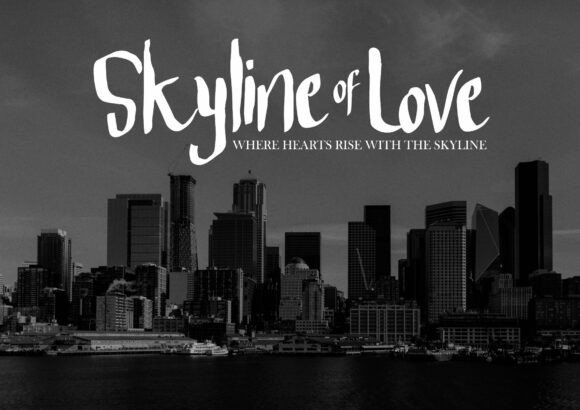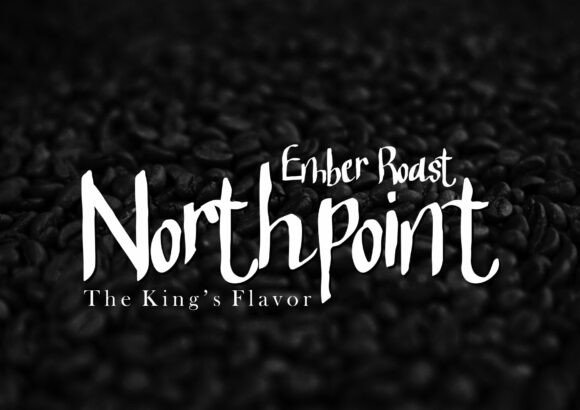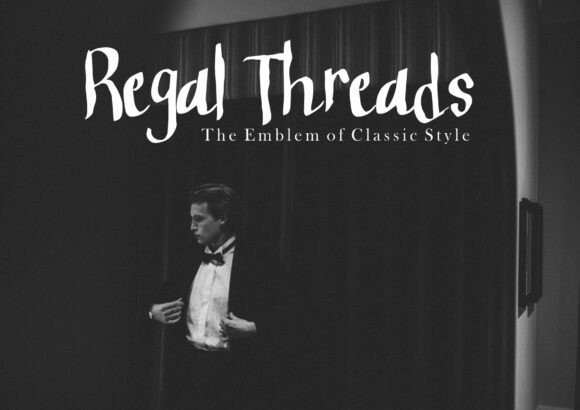
Introduction to Rasinky Font
Introducing Rasinky, a bold and expressive handwritten font with a touch of rustic charm.
Inspired by ink brush strokes, Rasinky brings a natural and organic feel to your designs, making it perfect for projects that need a personal, artistic, and handcrafted touch .